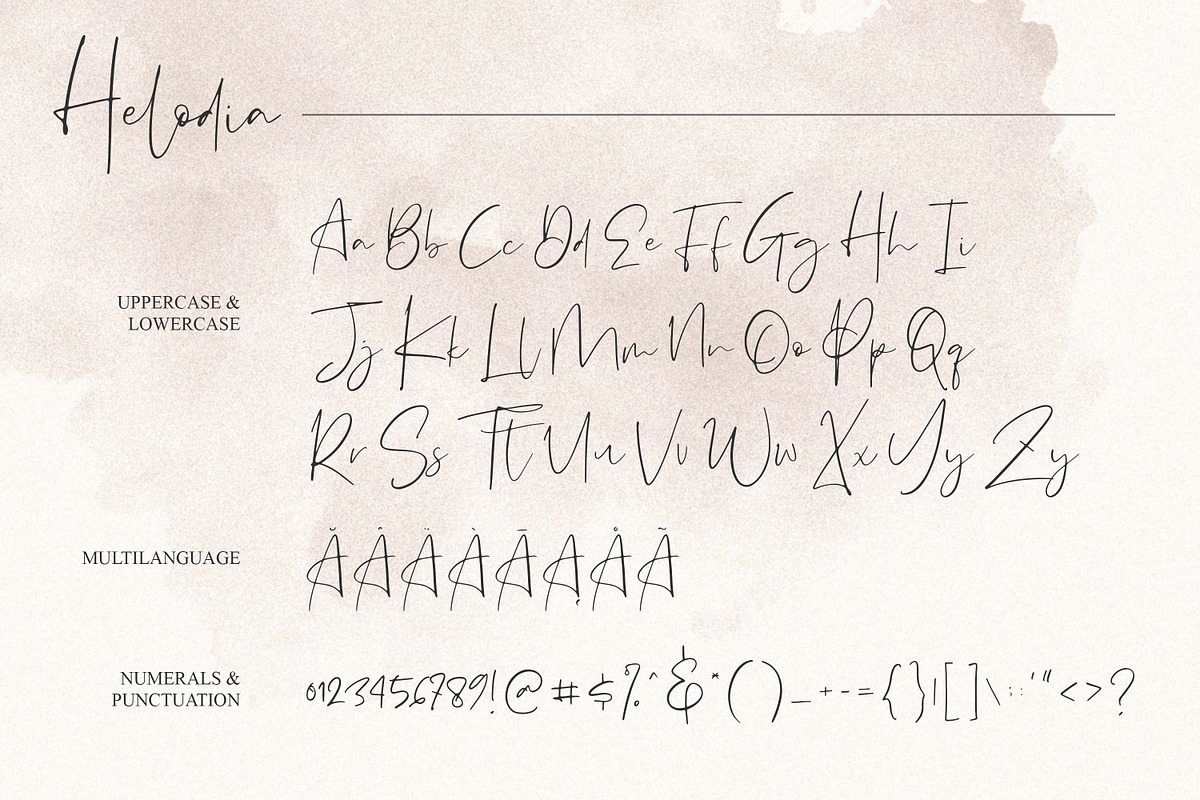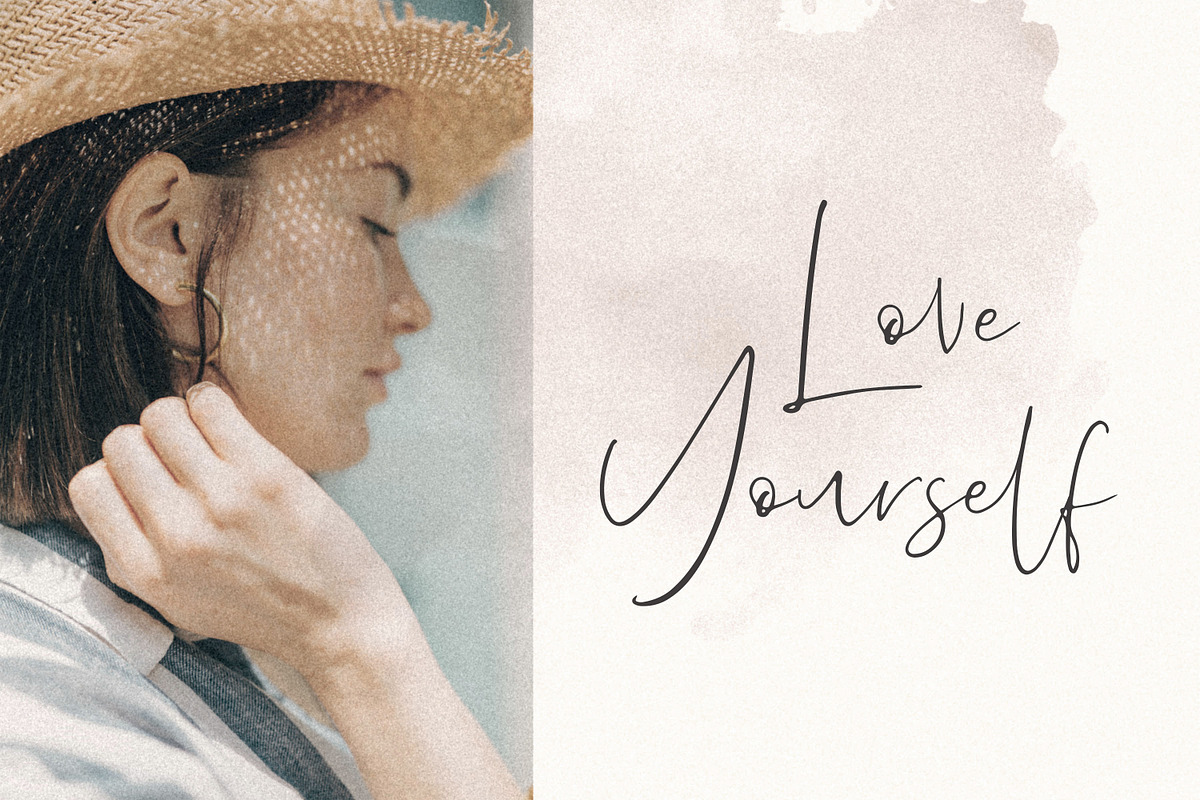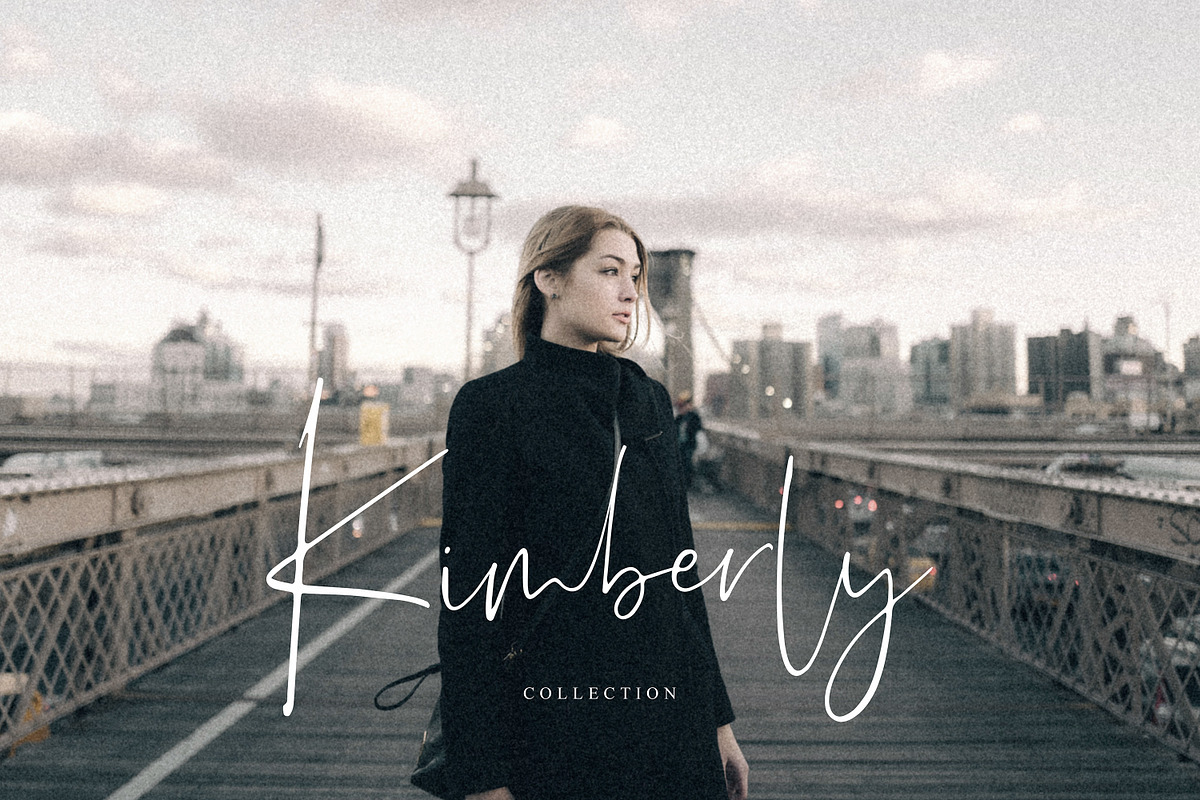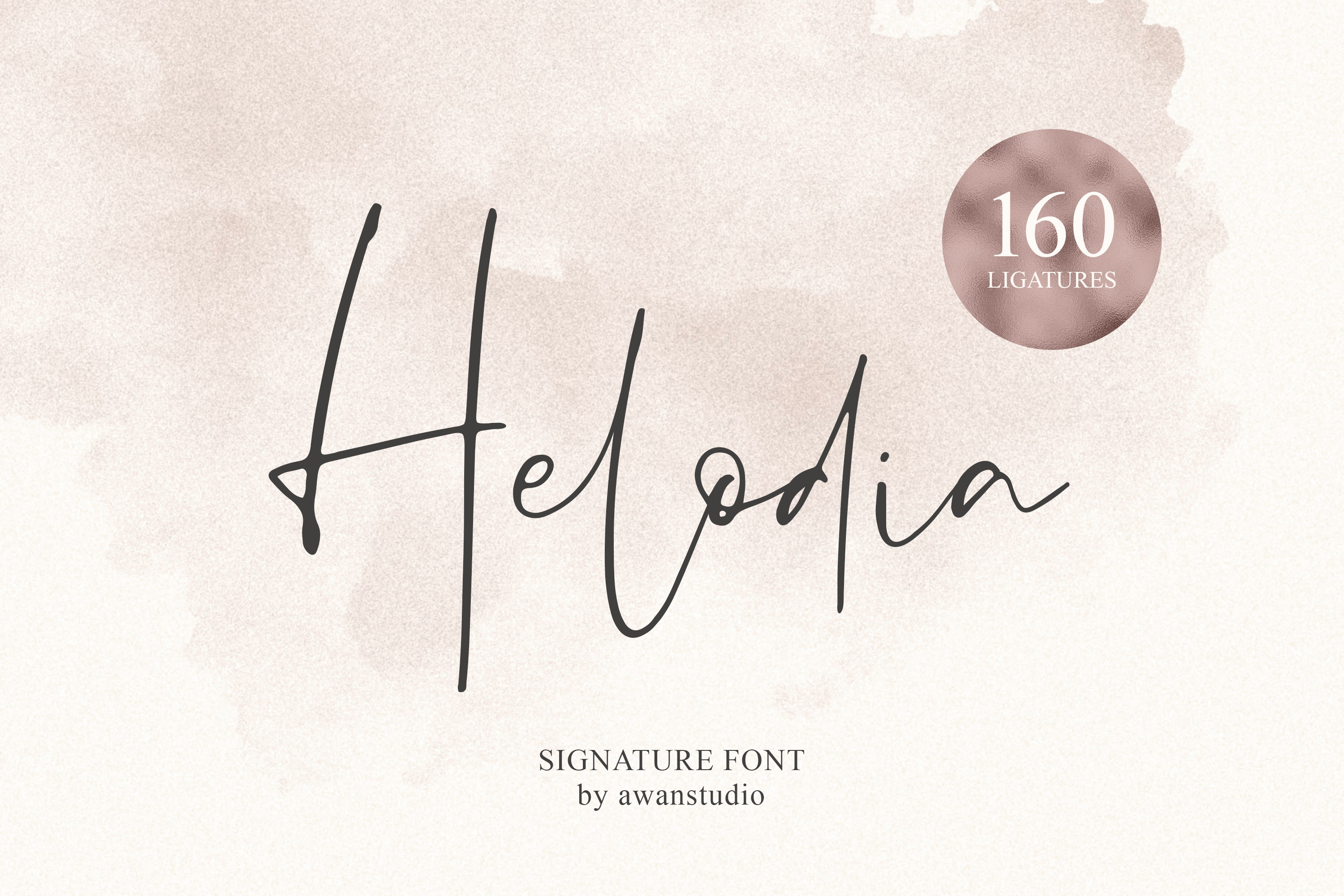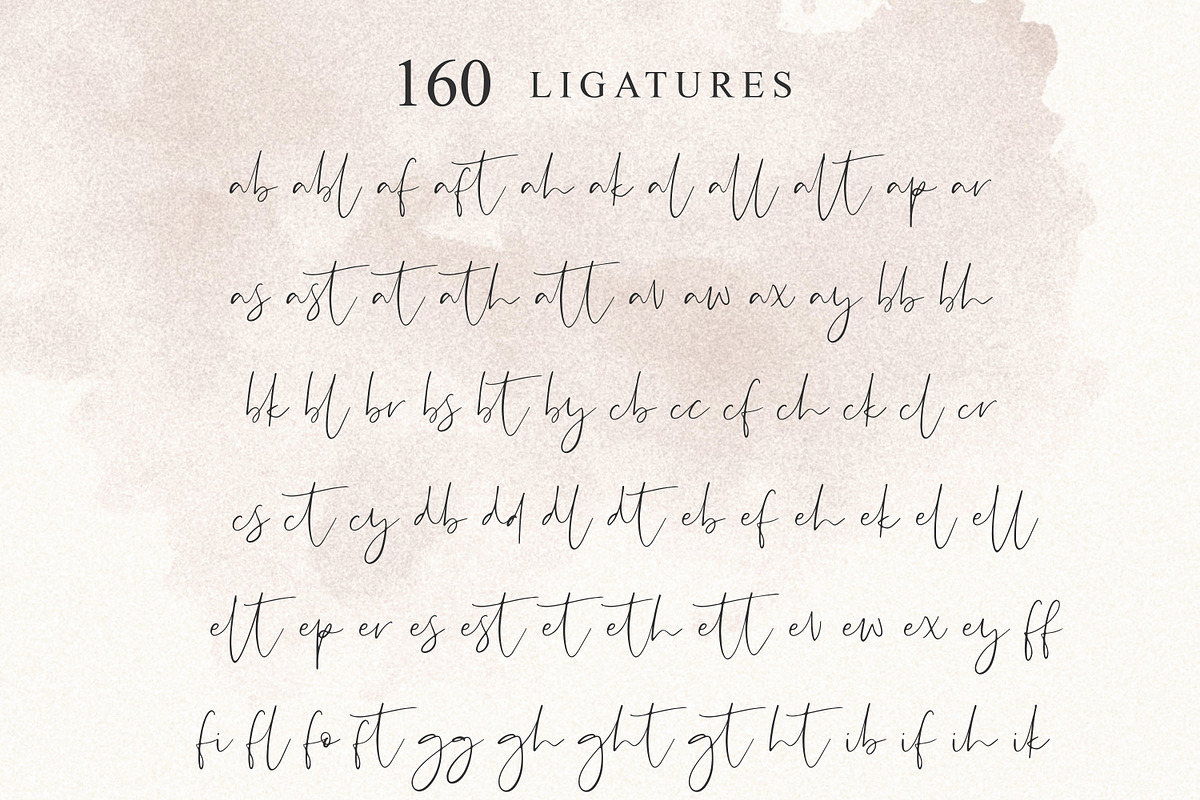
Helodia Signature Font
Introducing Helodia signature font! It allows you to create stunning and easy hand-lettering in an instant. Ideal for the logo, quotes, wedding, product label/packaging, fashion, letter, advertising, invitation, poster, merchandise, greeting cards, etc
- 160 Ligatures
- Multilanguage support